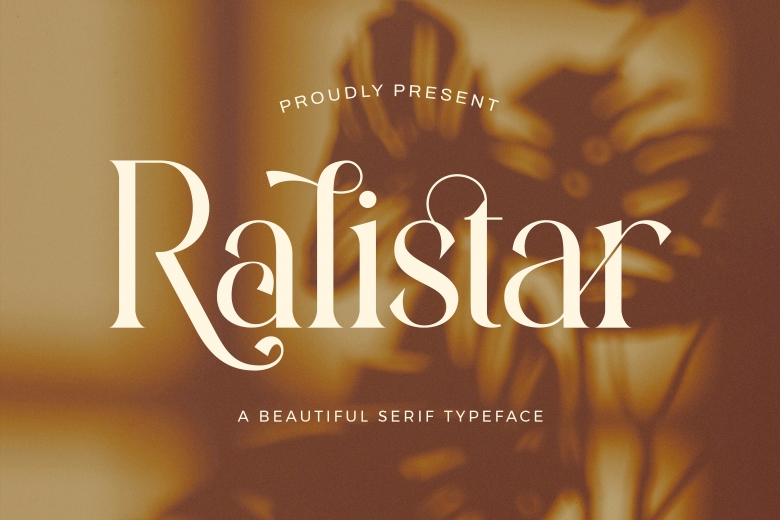
Ralistar Font
Ralistar is a modern serif font based on the famous minimalist logo type which can be used for designing templates, brochures and videos, advertisements and branding & logos, and many other uses.
Ralistar Serif Font